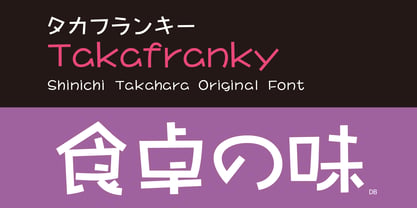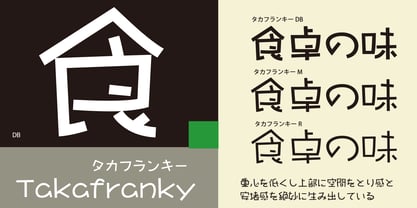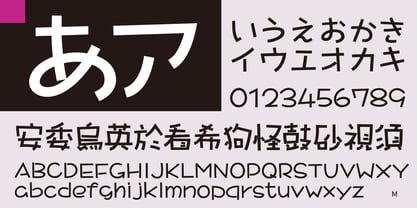
Takafranky
by Taka Design Production
The Takafranky Font Family was designed by and published by Taka Design Production. Takafranky contains 3 styles and family package options. More about this family
It is a unique handwritten typeface with an unpretentious, open-ended imbalance that is appealing. The center of gravity is lowered, and the space at the top creates a sense of brightness, spaciousness, and relief.